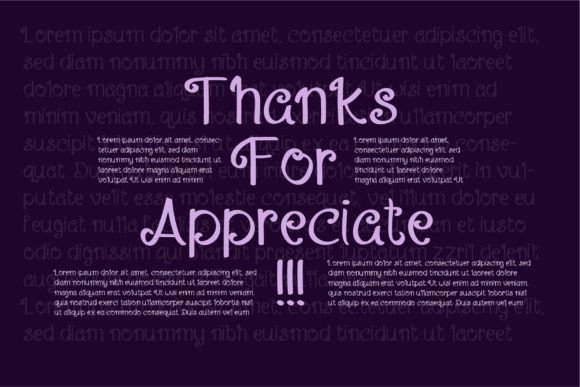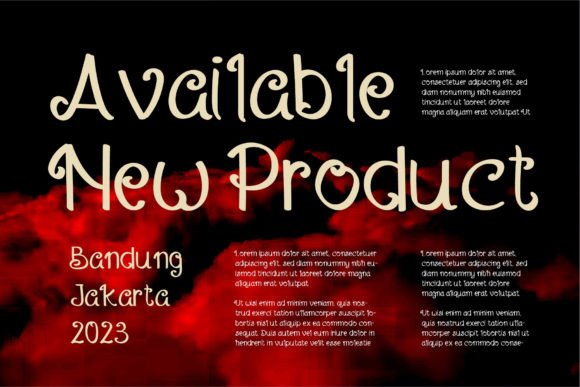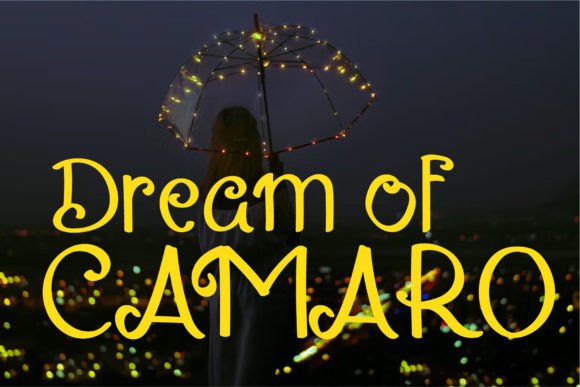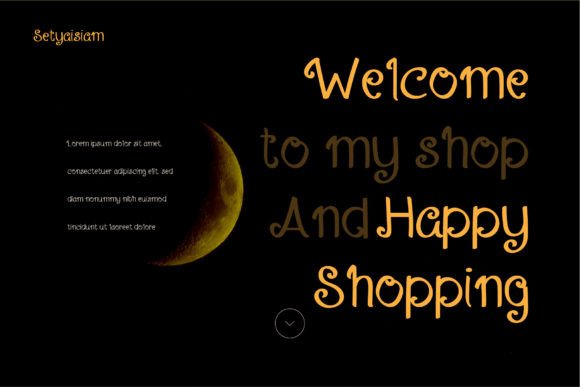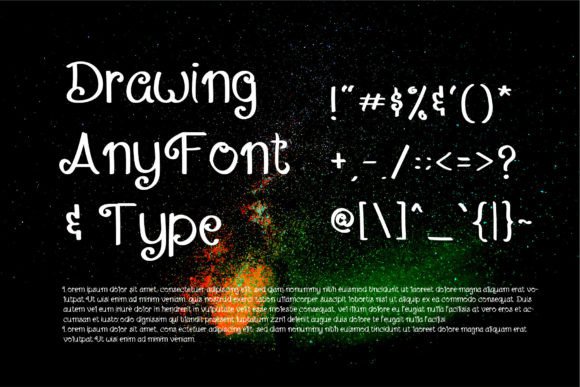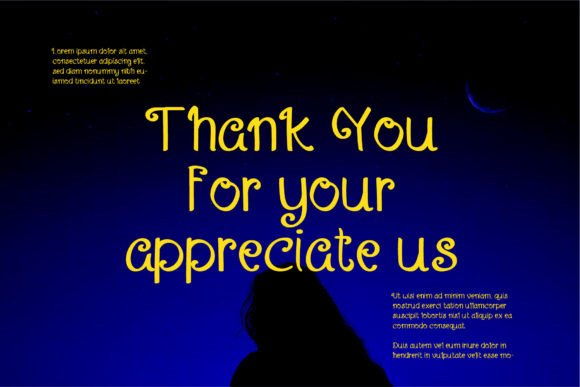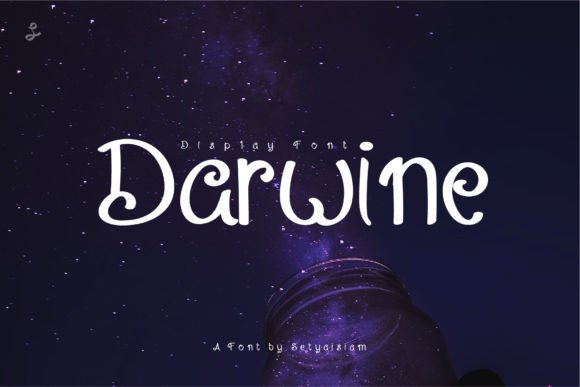
Introducing Darwine Font: The Ultimate Choice for Fun and Quirky Designs
Are you a designer or crafter looking for a font that can add a touch of playfulness and whimsy to your creations? Look no further than Darwine Font! This fun and quirky display font is perfect for cartoon-related designs, children’s games, and any project that requires a lovely and eye-catching touch.
What Makes Darwine Font So Special?
Darwine Font is a unique and creative typeface that stands out from the crowd. Its fun and quirky design makes it perfect for projects that require a playful and youthful vibe. The font’s distinctive characters and irregular shapes give it a charming and endearing quality that is sure to capture the attention of your audience.
Perfect for Cartoon-Related Designs
Cartoon-related designs require a font that can match their playful and imaginative tone. Darwine Font is the perfect choice for cartoon-style designs, as it features bold and rounded characters that evoke a sense of fun and adventure. Whether you’re creating a character logo, a comic book, or a cartoon-style illustration, Darwine Font is sure to bring your design to life.
Great for Children’s Games and Educational Materials
When it comes to designing children’s games and educational materials, it’s essential to use a font that is both fun and easy to read. Darwine Font fits the bill perfectly, with its clear and legible characters that are perfect for kids’ games, puzzles, and activity sheets. The font’s playful design also makes it ideal for educational materials, such as worksheets, activity books, and children’s textbooks.
Adding a Lovely Touch to Your Designs
Darwine Font is not just limited to cartoon-related designs and children’s games. This versatile font can be used in a wide range of projects that require a lovely and eye-catching touch. Whether you’re designing a logo, a poster, or a social media graphic, Darwine Font is sure to add a touch of personality and whimsy to your design.
Key Features of Darwine Font
• Fun and quirky design: Darwine Font features a unique and creative design that is perfect for playful and imaginative projects.
• Display font: Darwine Font is a display font, making it perfect for headlines, titles, and other attention-grabbing elements.
• Easy to read: Despite its playful design, Darwine Font is clear and legible, making it perfect for use in a wide range of projects.
• Versatile: Darwine Font can be used in a wide range of projects, from cartoon-related designs to educational materials and more.
Tips and Tricks for Getting the Most Out of Darwine Font
• Experiment with different font sizes: Darwine Font looks great in a variety of font sizes, from small and delicate to large and bold.
• Pair with other fonts: Darwine Font pairs well with other fonts, such as sans-serif fonts or script fonts. Experiment with different font combinations to create a unique and eye-catching design.
• Use in combination with graphics: Darwine Font looks great in combination with graphics, such as illustrations or icons. Use the font to add a touch of personality to your graphics.
Darwine Font is a fun and quirky display font that is perfect for designers and crafters looking to add a touch of playfulness and whimsy to their creations. With its unique and creative design, Darwine Font is sure to capture the attention of your audience and bring your design to life. Whether you’re creating cartoon-related designs, children’s games, or just any project that requires a lovely touch, Darwine Font is the ultimate choice.